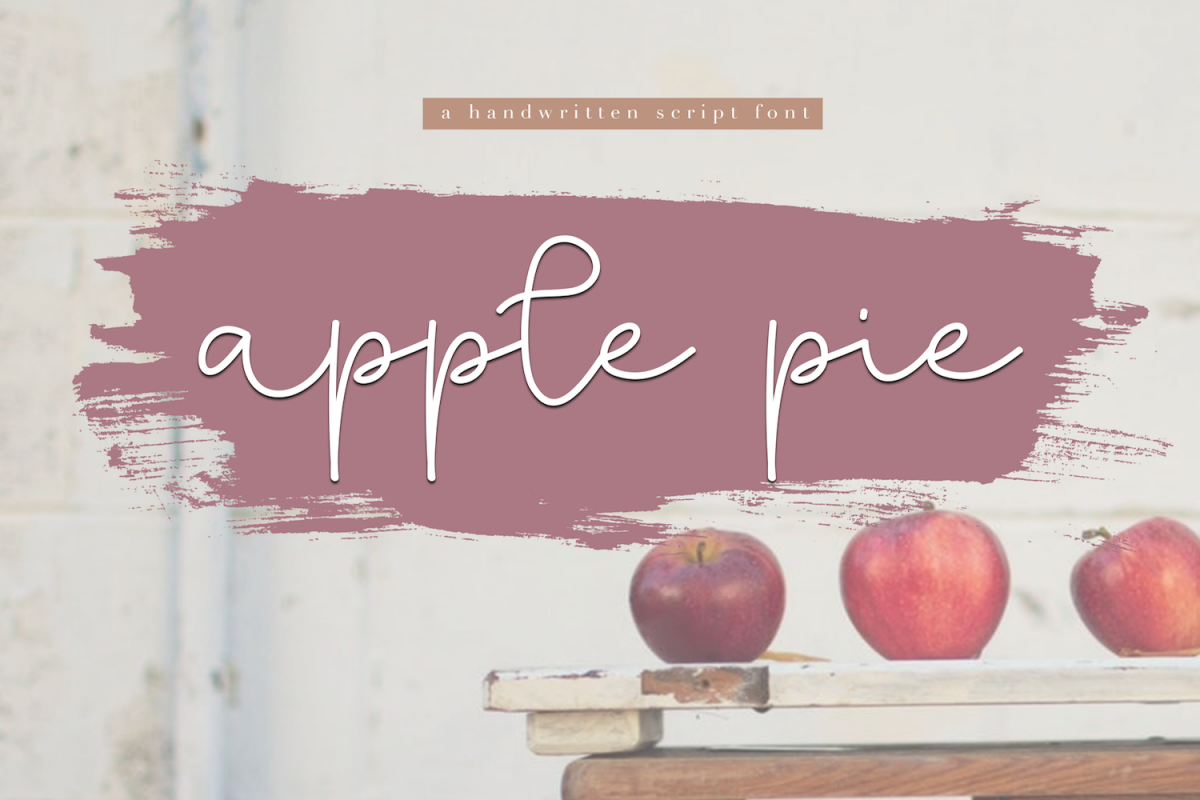
Apple Pie - A Handwritten Script Font
ApplePie
Apple Pie is a handwritten script font.
This font is perfect for quotes, headings, designs, logos, invitations and more!
This font *does* include accent characters.